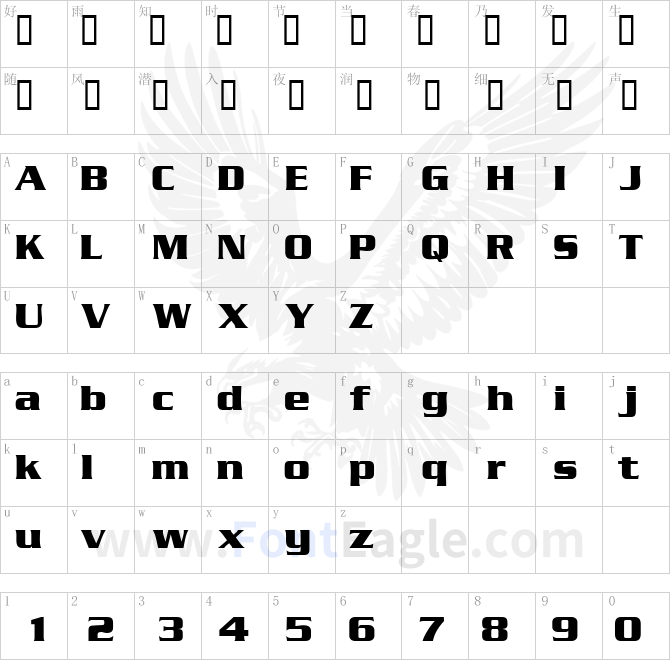
- Font name:BoostSSK
BoostSSK-Bold is a great font, widely used in graphic design, single-page menu design, poster design and other fields, and is deeply loved by designers.BoostSSK-Bold download.